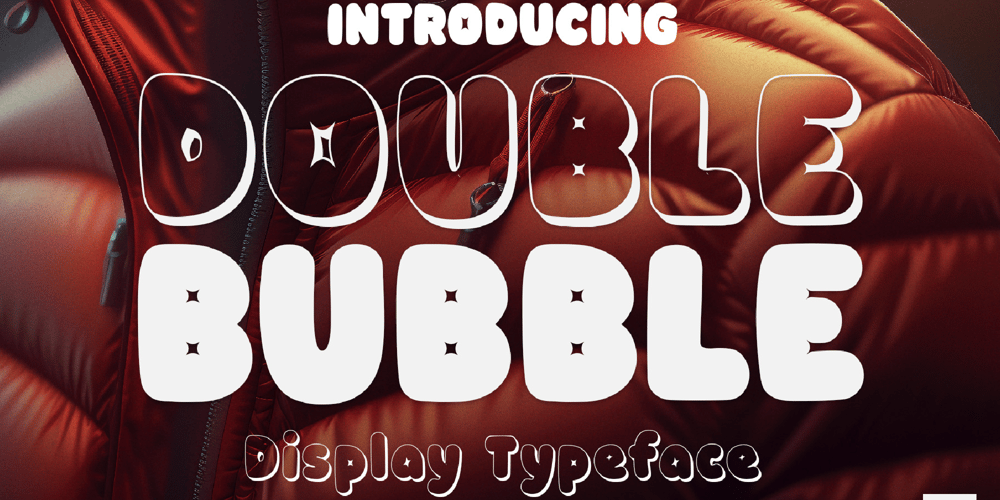
Double Bubble 3 D Font Family was designed by Igor Ovsyannykov and published by Hipfonts. Double Bubble 3 D contains 2 styles and family package options. Double Bubble is a fluffy bubble display typeface. Each letter floats playfully on its own, ready to jump off the page at any moment. The mesmerizing text you can create with Double Bubble is bound to bring shimmering joy to the viewer.Since this font comes with outline and a regular version, you can pair them together to create memorable designs. This font captures childhood imagination, bringing to mind images of bubble gum, bubble tea, and those comfortable puffy jacket you wore during winter. Whether you’re creating a poster, a website, or a social media post, Double Bubble is sure to capture the attention of anyone who sees it.